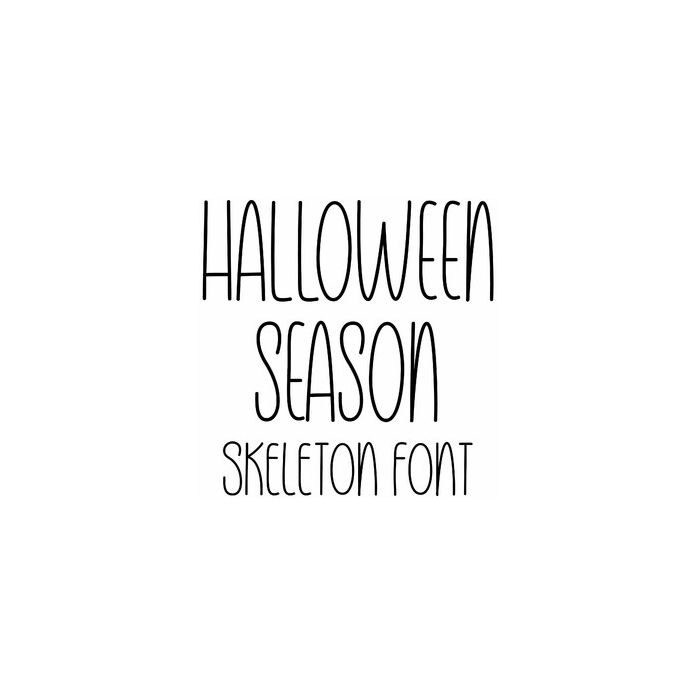
Halloween Season is a skeleton skinny handwriting font fun for fall cards, signs, decorations, notes, planners, calendars, stickers, monograms, and personalization projects.